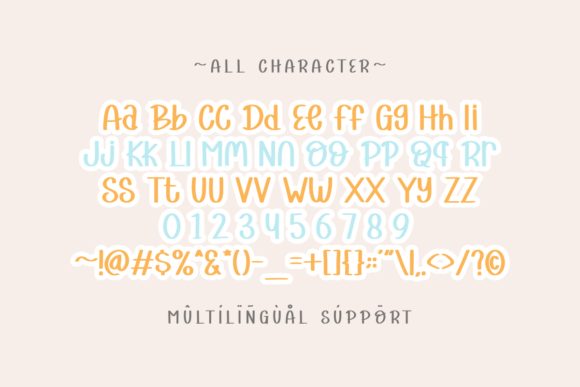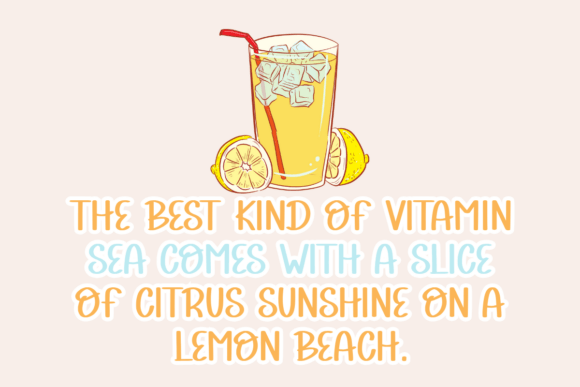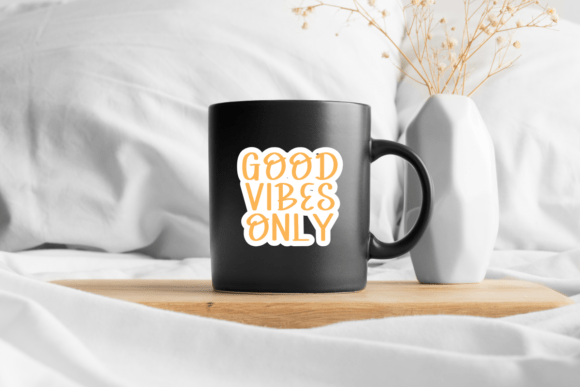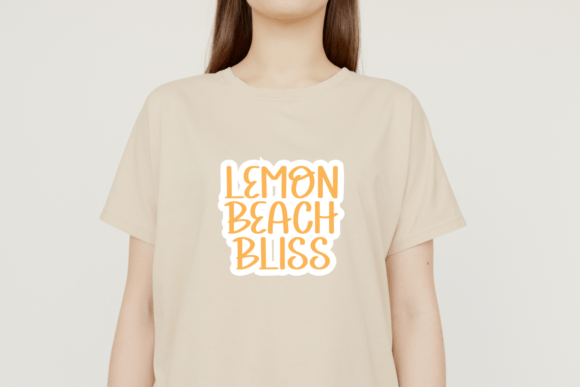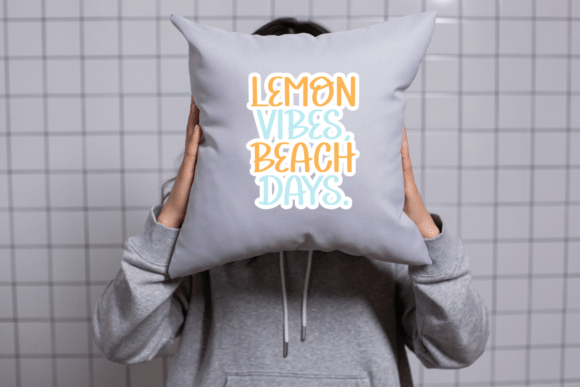
Introduction to Lemon Beach Font
Do you remember the excitement of designing a new project, and the perfect font just slips right into place? It’s that moment when everything comes together, and your creativity shines through. For graphic designers and crafters, finding the right font can make all the difference in elevating a project from good to great. And that’s exactly what the Lemon Beach Font offers – a unique and charming handwritten font that brings a refreshing touch to any design.
Key Features of Lemon Beach Font
- High quality: This font features a clear and crisp design, ensuring that your text stands out with high-quality results.
- Unique characteristics: The font’s playful and beach-inspired design makes it perfect for creative projects that require a fun and laid-back vibe.
- Perfect for creative projects: The Lemon Beach Font is ideal for use in various creative projects, including but not limited to, branding, advertising, and web design.
Honest Review: Lemon Beach Font
As a designer, I’m always on the lookout for high-quality fonts to enhance my creative projects. The Lemon Beach Font caught my eye, and I was eager to try it out.
One of the standout features of this font is its high-quality design, which makes it perfect for a variety of projects, from branding to web design. I also appreciate that it’s available for free download, making it an excellent resource for designers on a budget.
Here are some things that work well with the Lemon Beach Font:
- ✨ Beautiful, modern design that’s perfect for creative projects
- ✨ Suitable for both digital and print projects
- ✨ High-quality, scalable design
- ⚠️ Some users may find the font too bold or overpowering for certain projects
Overall, I’m impressed with the Lemon Beach Font, and I would definitely consider using it for future projects. While it may have some limitations, its high-quality design and free download make it a valuable resource for designers.
Tips for Getting the Most Out of Lemon Beach Font
Use Lemon Beach Font in combination with other design elements, such as images or graphics, to create visually appealing designs. Experiment with different font sizes, colors, and styles to find the perfect look for your creative project.
Common Use Cases for Lemon Beach Font
Lemon Beach Font is perfect for creating designs for summer-themed projects, such as beach party invitations, summer sale posters, or vacation brochures. Its bright and cheerful style makes it ideal for designs that require a fun and playful tone.
What makes the Lemon Beach Font a high-quality design resource?
The Lemon Beach Font is designed with precision and attention to detail, ensuring a crisp and clear appearance on various devices and platforms. Its high-quality design makes it an excellent choice for designers who demand the best for their creative projects.